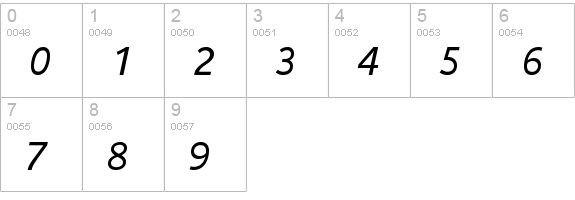
Parisine Italic Font Details
Parisine Italic is a distinctive, italic variant in the Parisine typeface family \xE2\x80\x94 well suited to design and typography projects.
Parisine Italic is an exquisite and elegant font that exudes a sense of sophistication and refinement. Its graceful curves and slanted angles create a captivating visual rhythm that adds a touch of dynamism to any text. The slanted nature of the italic style gives it a sense of movement, making it perfect for conveying a sense of energy and excitement. This font is the epitome of timeless beauty, combining classic elements with a modern twist. It effortlessly blends traditional calligraphic elements with contemporary design aesthetics, resulting in a font that is both versatile and visually striking. Parisine Italic is the perfect choice for those seeking a font that is at once sophisticated and approachable. What sets Parisine Italic apart is its versatility. It is equally suited for both display purposes and longer passages of text, making it a versatile font that can adapt to various design needs. Whether used in headlines, subheadings, or body text, this font effortlessly captures attention while maintaining readability. Parisine Italic is freely available to download at FontsMarket.com, making it accessible to designers, creatives, and typophiles alike. Its availability ensures that anyone can incorporate this stunning font into their projects, adding a touch of elegance and style. So why wait? Download Parisine Italic today and elevate your designs to new levels of sophistication.